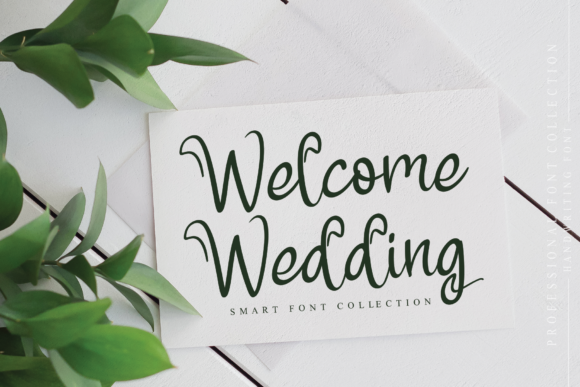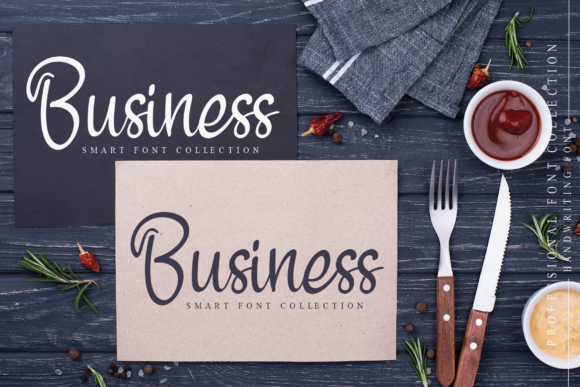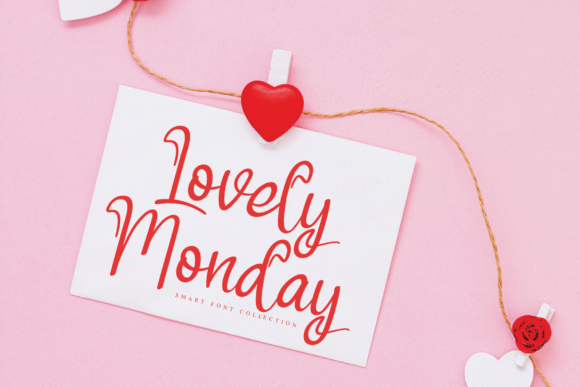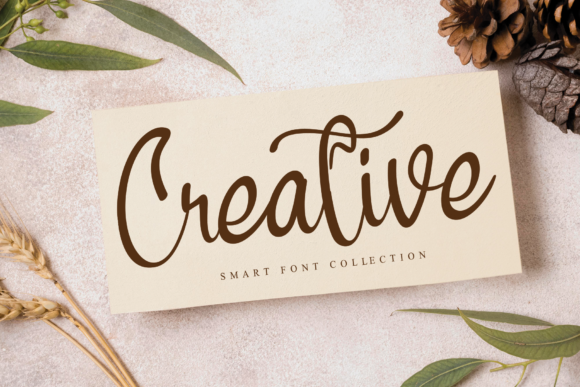
Adding a Touch of Whimsy to Your Crafts
Do you remember the feeling of creating something truly special, just for yourself or as a gift for a loved one? The joy of crafting is all about adding that personal touch, making it unique and meaningful. For me, it’s the moment when I pick up my favorite pen and paper, and the ideas start flowing. It’s in these moments that I realize the power of a great font – one that can elevate my creations and make them truly unforgettable.
Enter the Angel Show Font, a classic handwritten font that’s perfect for adding a touch of whimsy to your crafts. This beautiful font is designed to bring a sense of personality to your projects, making them stand out in a crowd. Whether you’re a seasoned crafter or just starting out, the Angel Show Font is a valuable addition to your toolkit. With its versatility and charm, it’s no wonder designers love using it to create one-of-a-kind designs.
Angel Show Font Key Features
- Font Family: Angel Show Font is a unique, hand-drawn font with a whimsical feel, ideal for creative projects.
- Unique Characteristics: Features intricate, hand-drawn details and a mix of uppercase and lowercase letters, making it perfect for titles, headings, and creative typography.
Angel Show Font Review
Overall, I think the Angel Show Font is a great choice for designers who want to add a touch of whimsy and elegance to their projects. ✨ The font’s unique, hand-drawn style and intricate details make it perfect for creating eye-catching headings and titles.
Here are some of the things that I think work well with this font:
- ✨ Unique, hand-drawn style that adds a personal touch to designs
- ✨ Intricate details and flourishes that make it perfect for creating elaborate titles
- ✨ Wide range of language support, making it suitable for multilingual projects
- ⚠️ Limited font sizes available, which can make it difficult to scale the font for larger or smaller text
- ⚠️ Some characters may not display correctly in certain fonts or font sizes, which can lead to inconsistencies in design
Overall, I think the Angel Show Font is a great choice for designers who want to add a touch of elegance and whimsy to their projects. While it may have some limitations, I think its unique style and intricate details make it well worth considering for your next design project.
Here are some tips for getting the most out of the Angel Show Font:
- Use it sparingly to add a touch of elegance to your designs.
- Pair it with other elegant fonts to create a cohesive look.
The Angel Show Font is commonly used for:
- Formal event invitations and announcements.
- Luxury brand designs and packaging.
Comparison to Angel Show Font: While both fonts have a similar elegant feel, Great Vibes Font is more flowing and has a more natural, handwritten look. It’s also more versatile and can be used in a wider range of design contexts.
Comparison to Angel Show Font: While both fonts have a similar playful feel, Dancing Script Font is more energetic and has a more dynamic look. It’s also more suitable for digital content and social media graphics.
Comparison to Angel Show Font: While both fonts have a similar elegant feel, Carolyna Pro Font is more refined and has a more sophisticated look. It’s also more suitable for high-end designs and luxury branding.